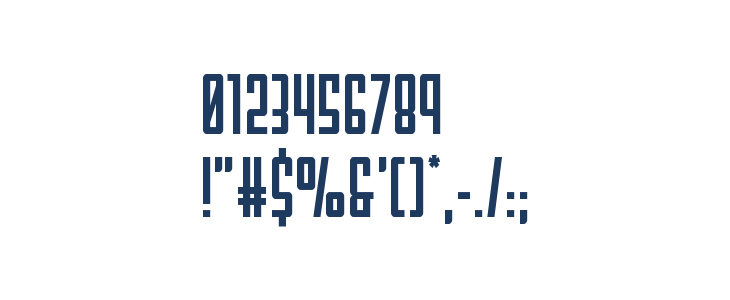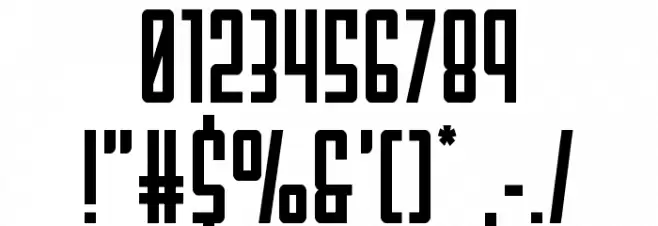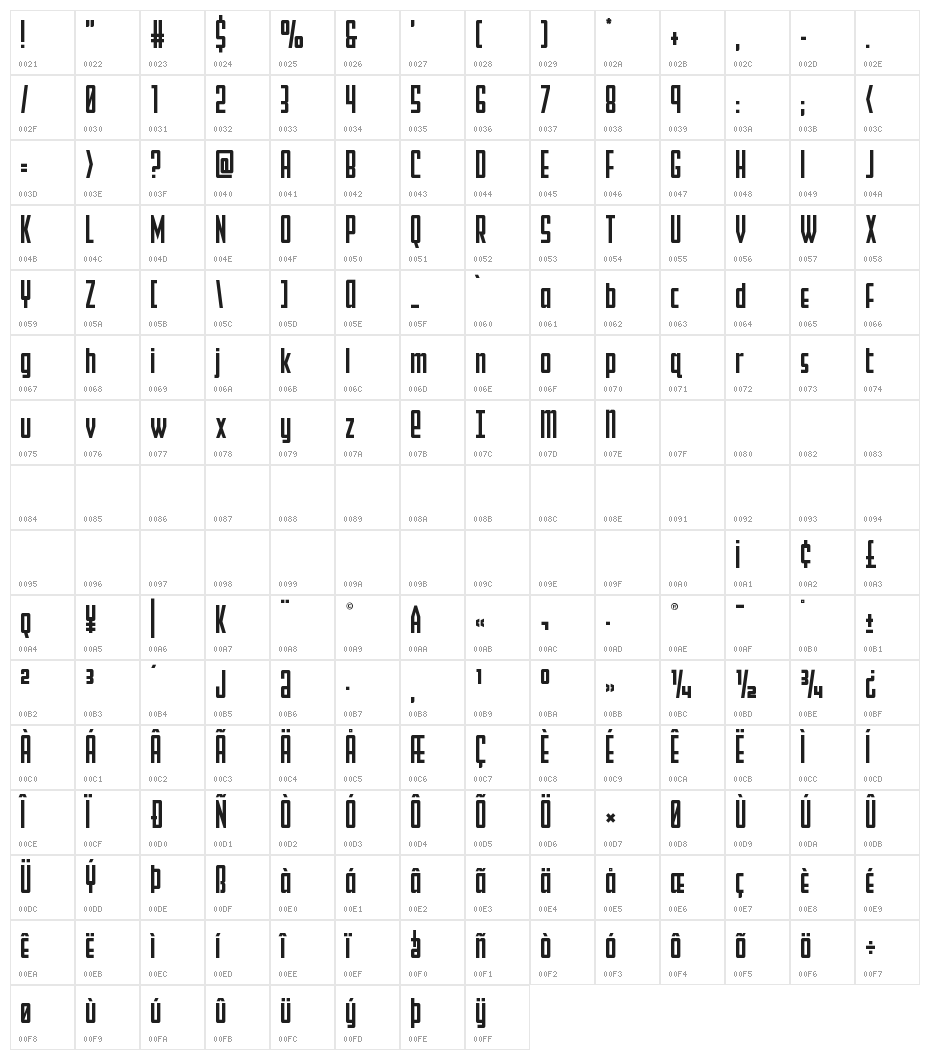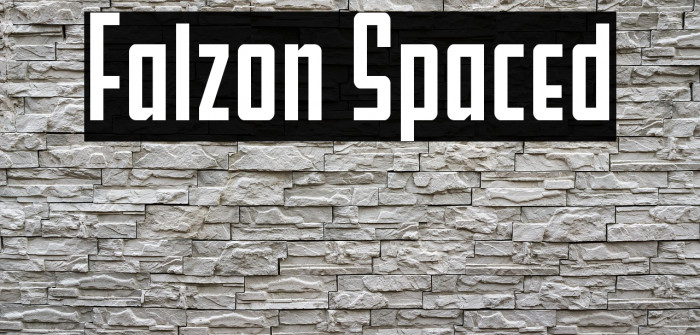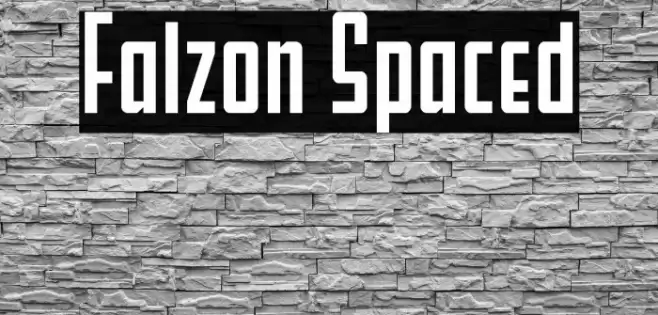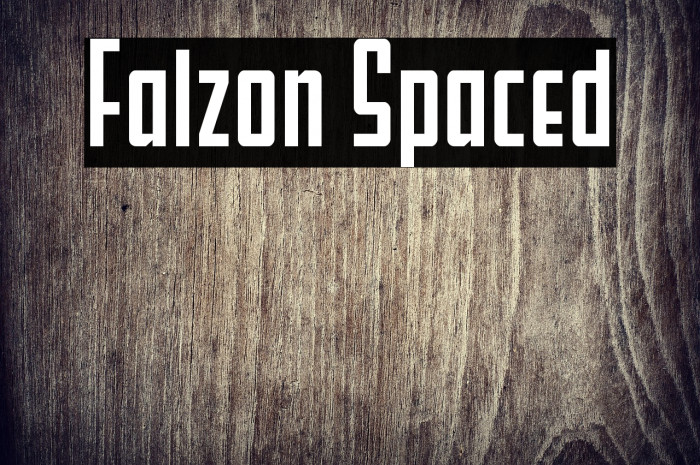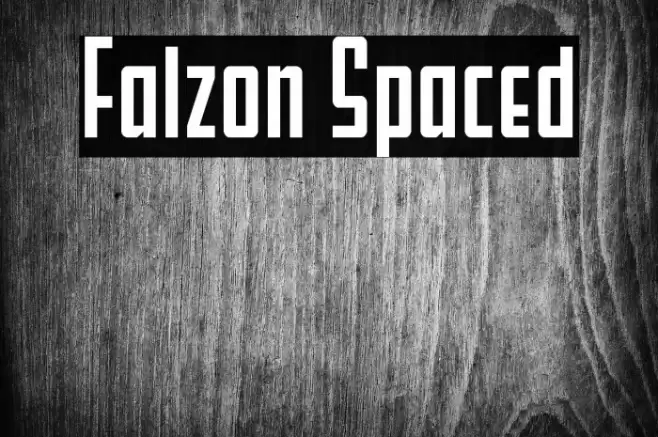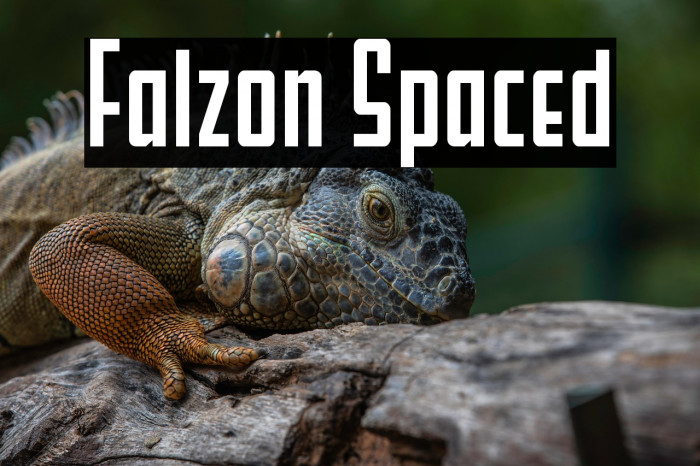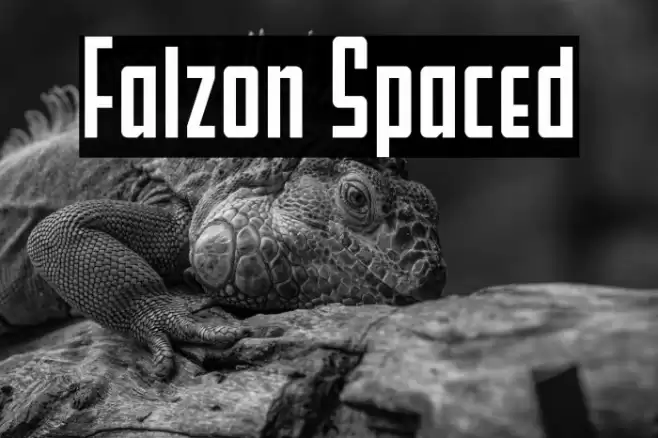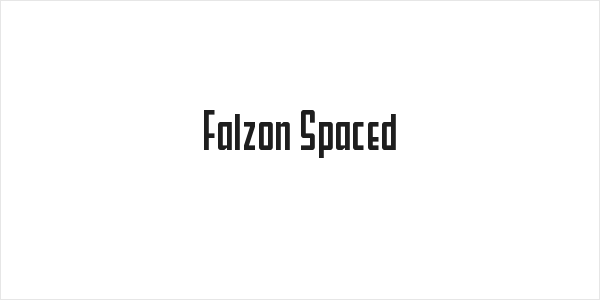
Falzon Spaced Font
Falzon Spaced Description
This font features a bold and geometric design, characterized by its strong vertical lines and sharp angles. The uppercase letters are tall and narrow, giving a condensed appearance, while the lowercase letters maintain a consistent height and width, ensuring readability. The numerals are uniform in size, aligning well with the overall structure of the font. Special characters are distinct and match the bold style, making them stand out. The font's design is modern and clean, suitable for making a strong visual impact.
Proposed ProjectsIdeal for headlines, posters, branding, and any project requiring a strong, modern aesthetic.